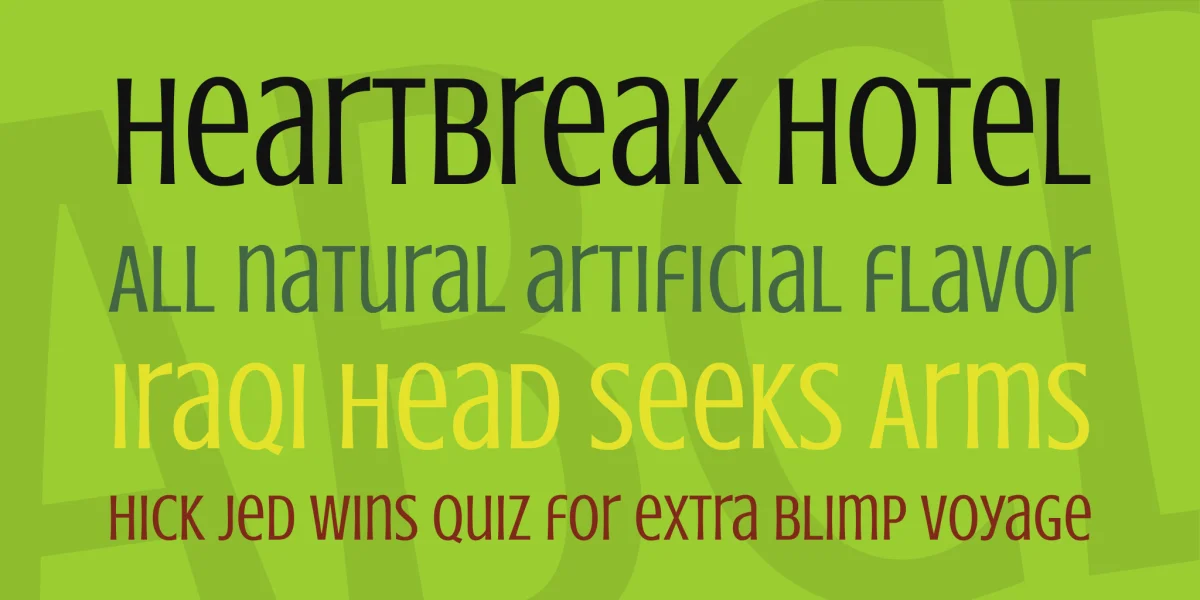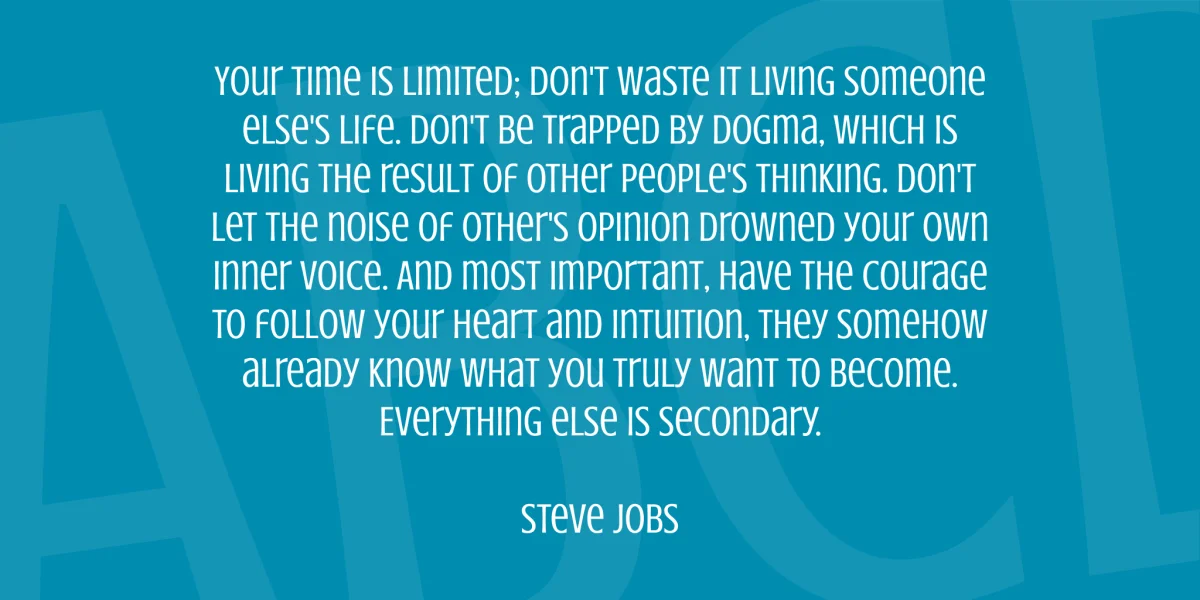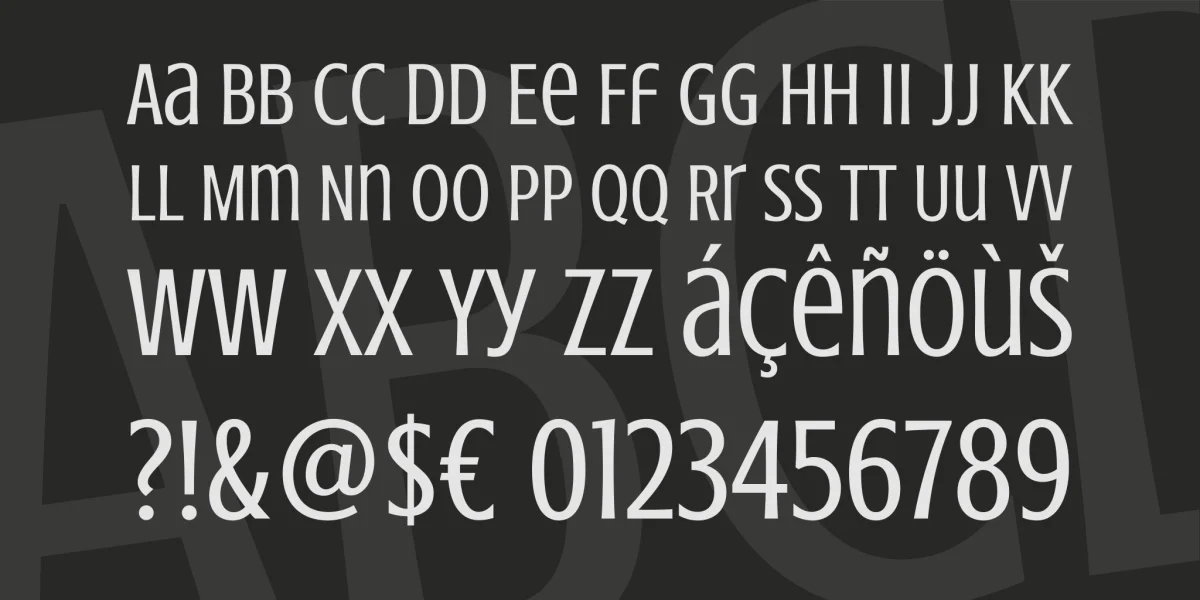
Crushed was designed in 2010 as a headline and display typeface. Featuring a condensed body width and subtlely tapered vertical strokes, Crushed is a unicase design, tossing aside the traditional lowercase for one that matches the cap height. Though intended for display, Crushed actually looks great and reads well in text usage. The gentle taper of the stems add a certain class and the basic letterforms are modern and fresh.